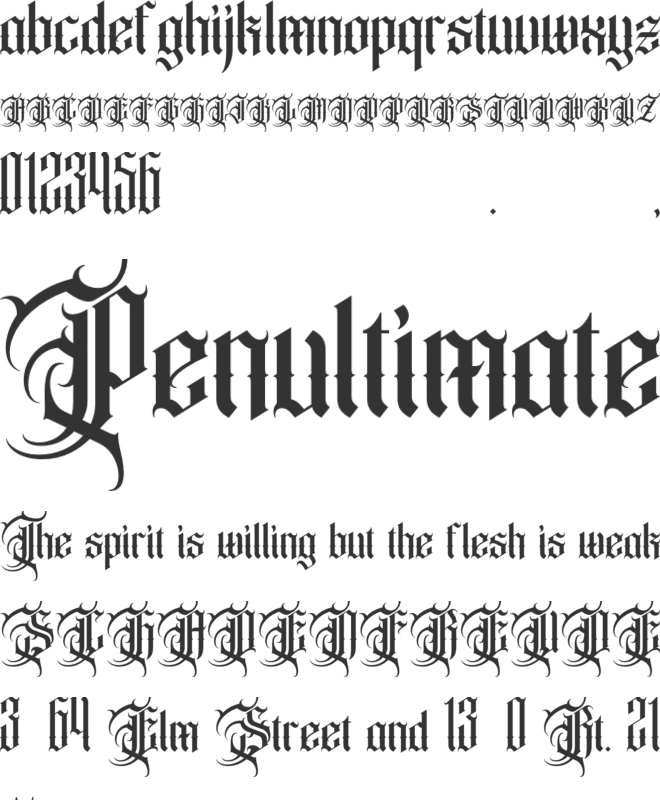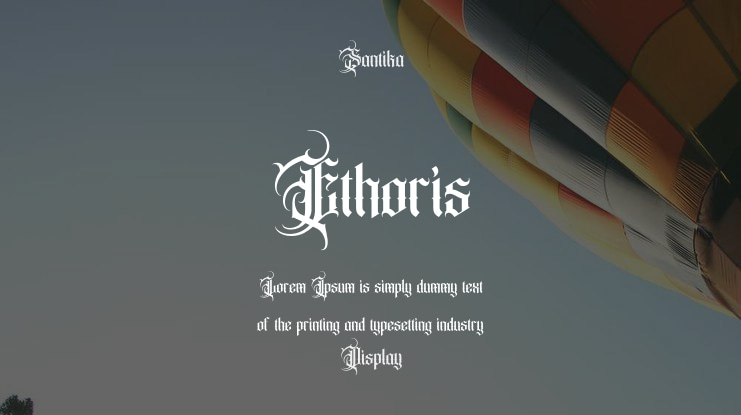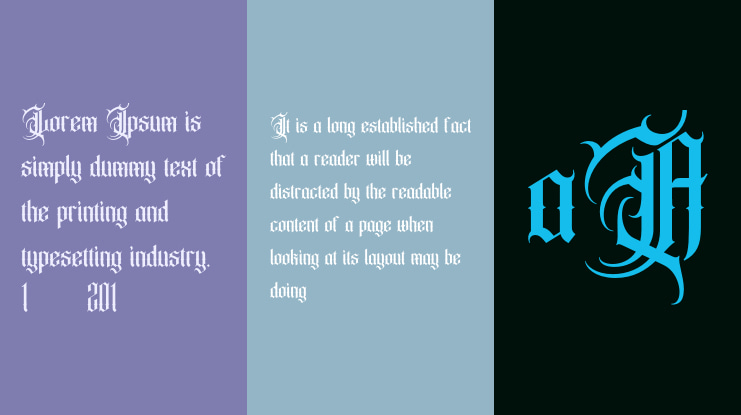
Ethoris Font
Summon dark, visceral energy into your typography with Ethoris, a modern blackletter horror typeface handcrafted by Burntilldead Studio. Combining classic gothic calligraphy with aggressive sharp flourishes, thorn-like swashes, and a heavy brutalist structure, Ethoris is designed to command attention across dark aesthetic projects.
Perfect for:
- Black Metal, Hardcore & Deathcore Band Logos & Album Art
- Horror Movie Banners, Dark Fantasy Posters & Book Covers
- Gothic Streetwear, Heavy Metal Merch & Tattoo Apparel
- Halloween Event Graphics, Occult Posters & Editorial Layouts
- Underground Club Signage & Dark Aesthetic Branding